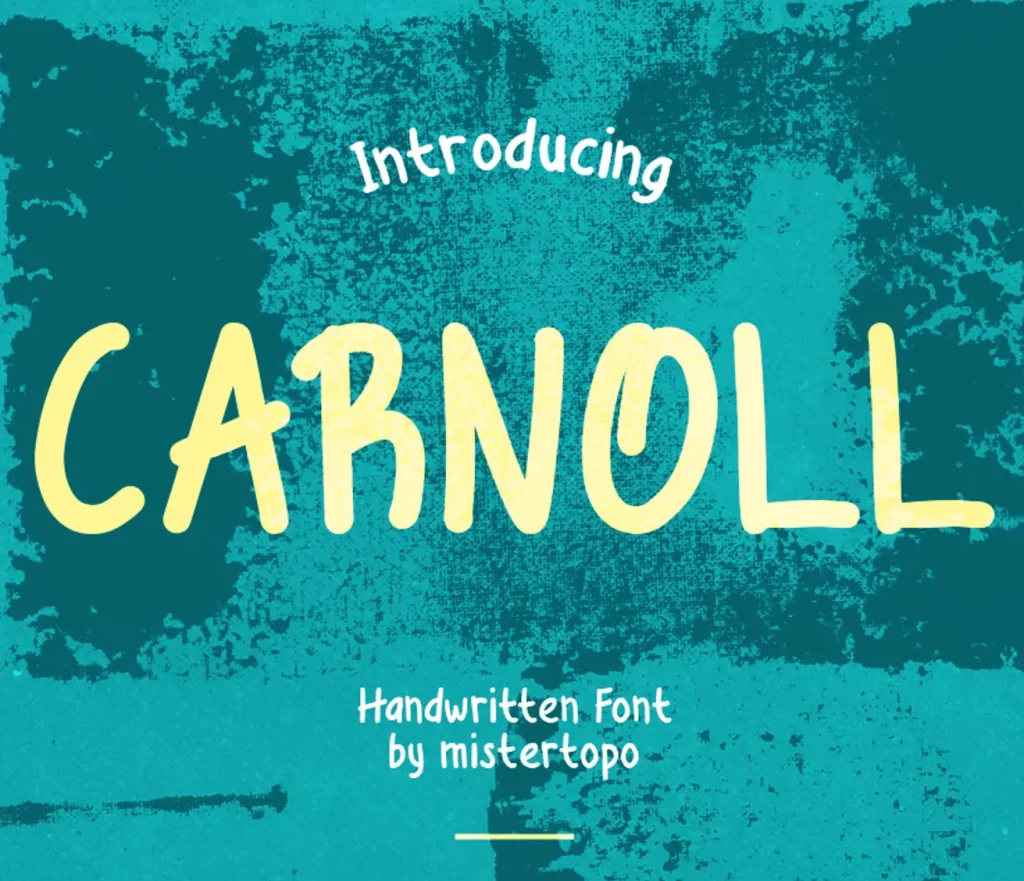
Carnoll is a handwritten font that combines casual style with polished execution.
This typeface delivers a natural, flowing script quality perfect for adding organic warmth to digital and print projects.
Its balanced letterforms maintain readability while preserving the authentic feel of handwriting.
- Complete uppercase and lowercase character set
- Numerals and standard punctuation marks
- Smooth, consistent stroke weights
- Brand identity projects requiring approachable sophistication
- Social media graphics that benefit from personal connection
- Printed materials like invitations and cards needing handcrafted aesthetics
- Product labels and packaging seeking artisanal quality
- Quote graphics and posters requiring readable script fonts